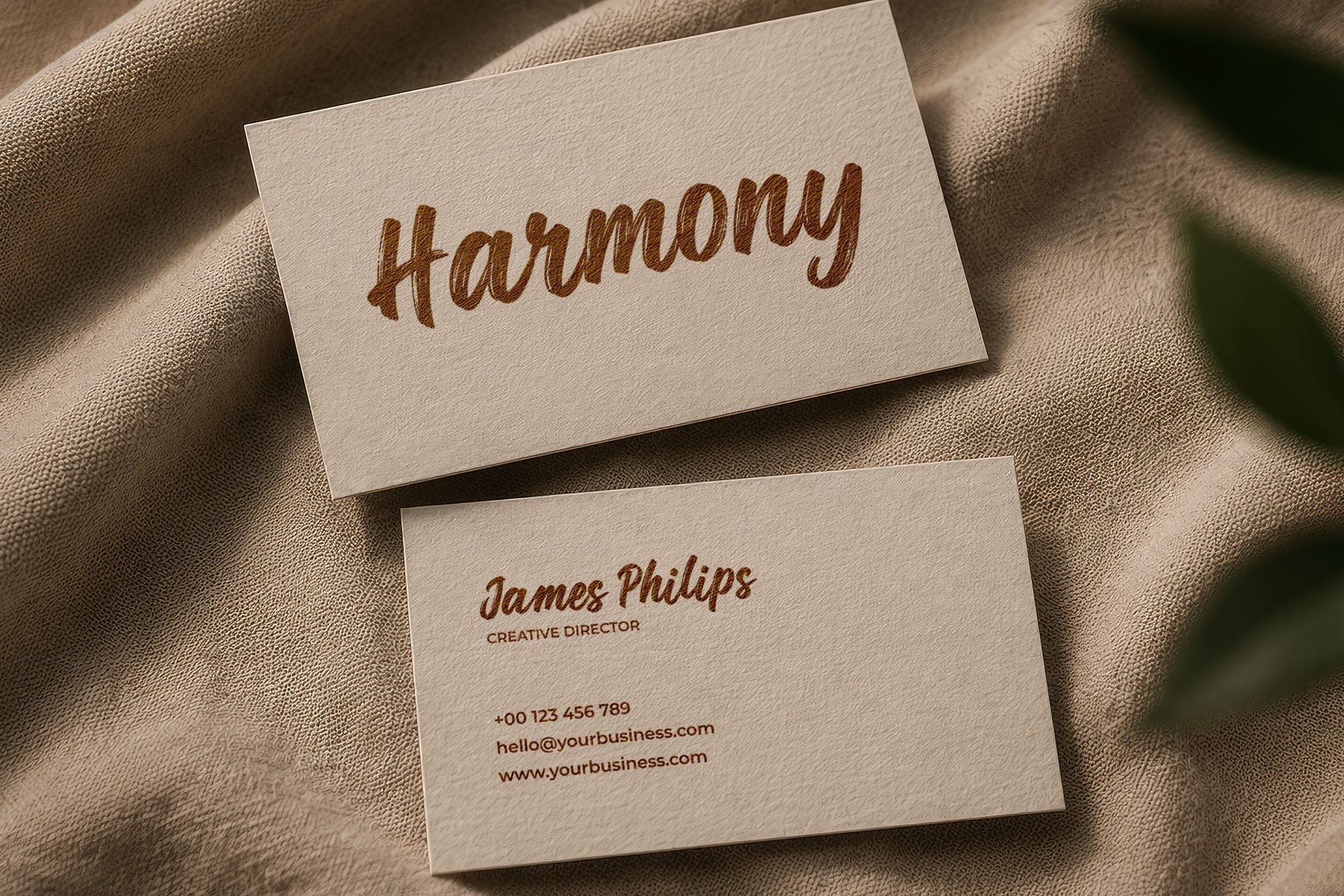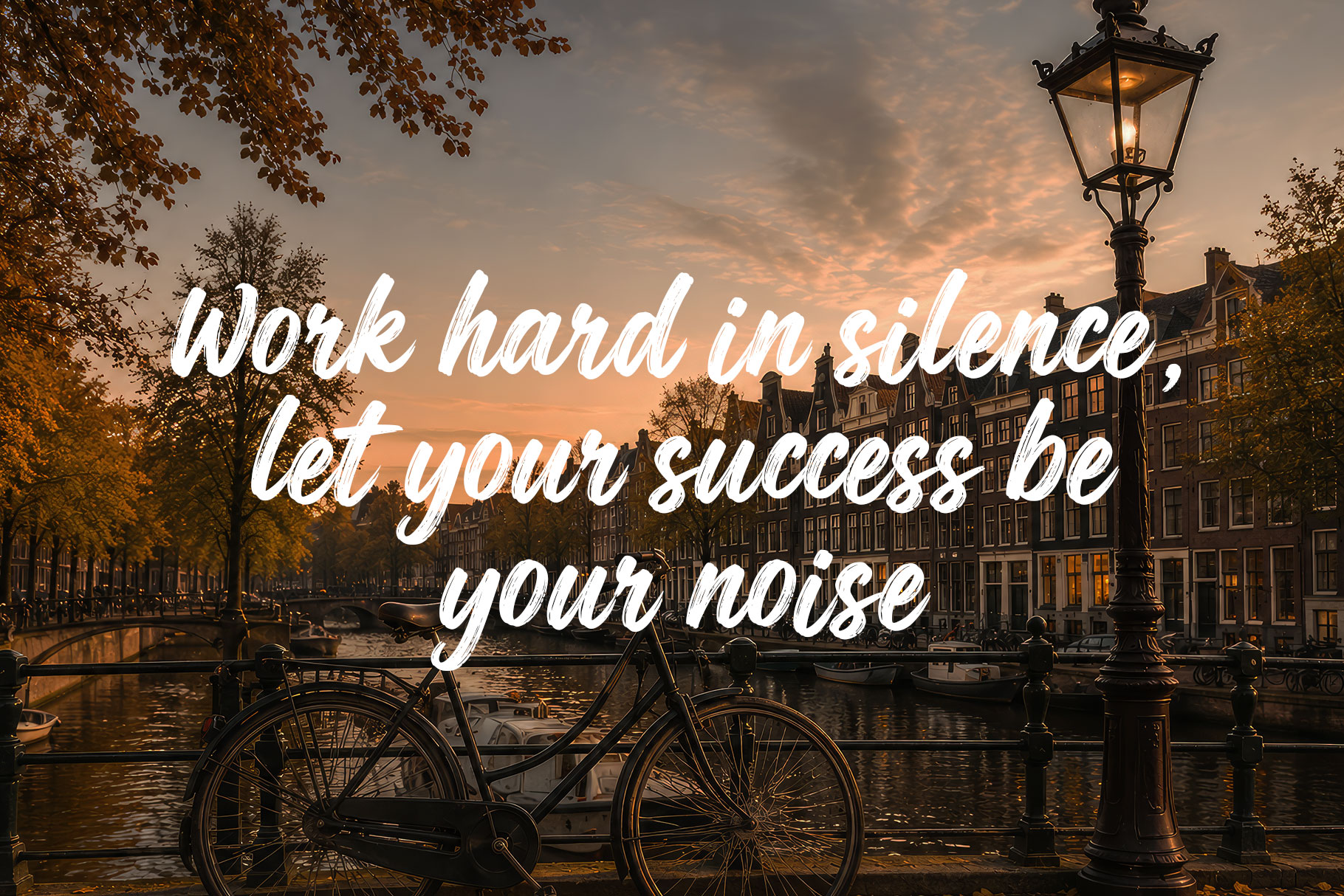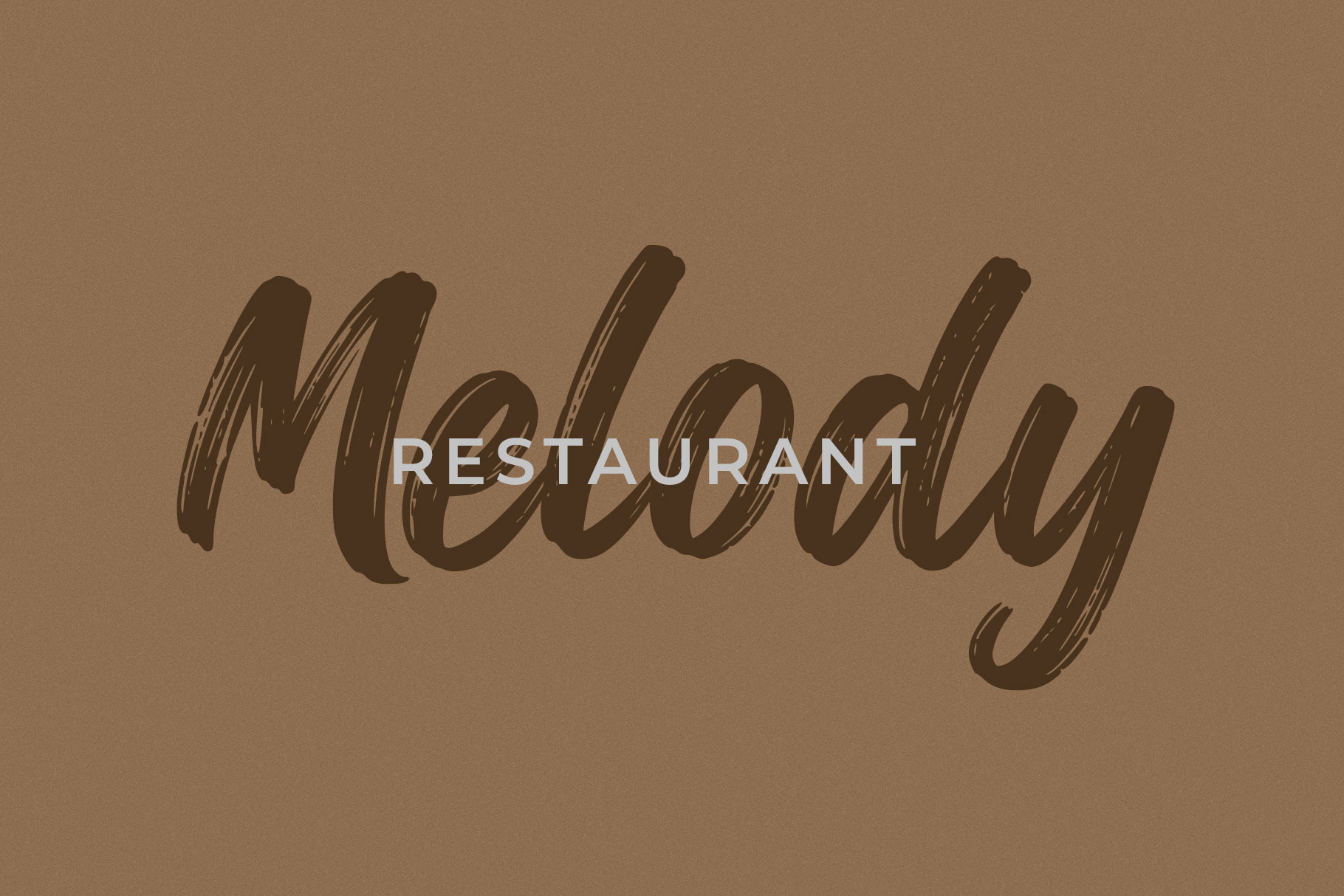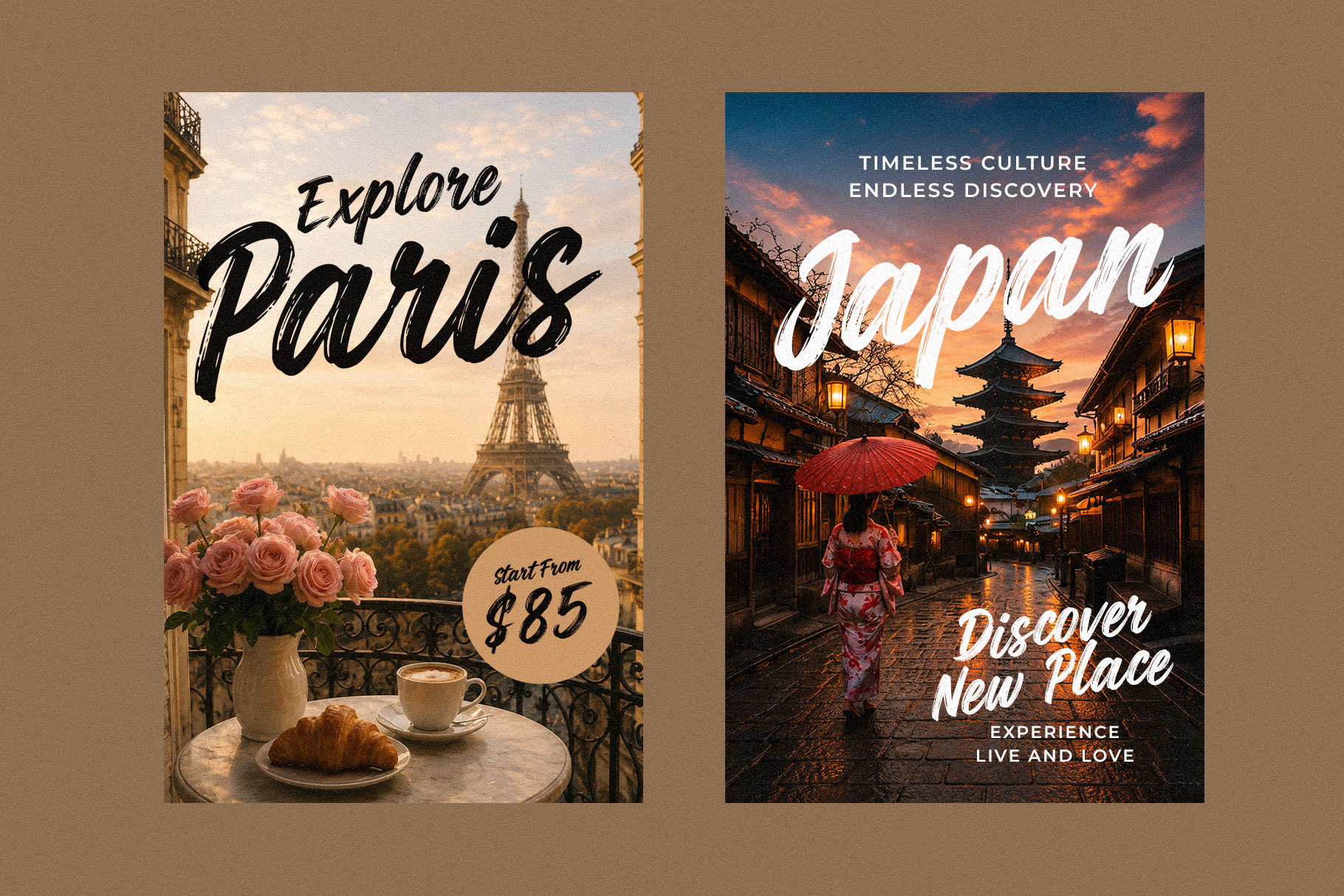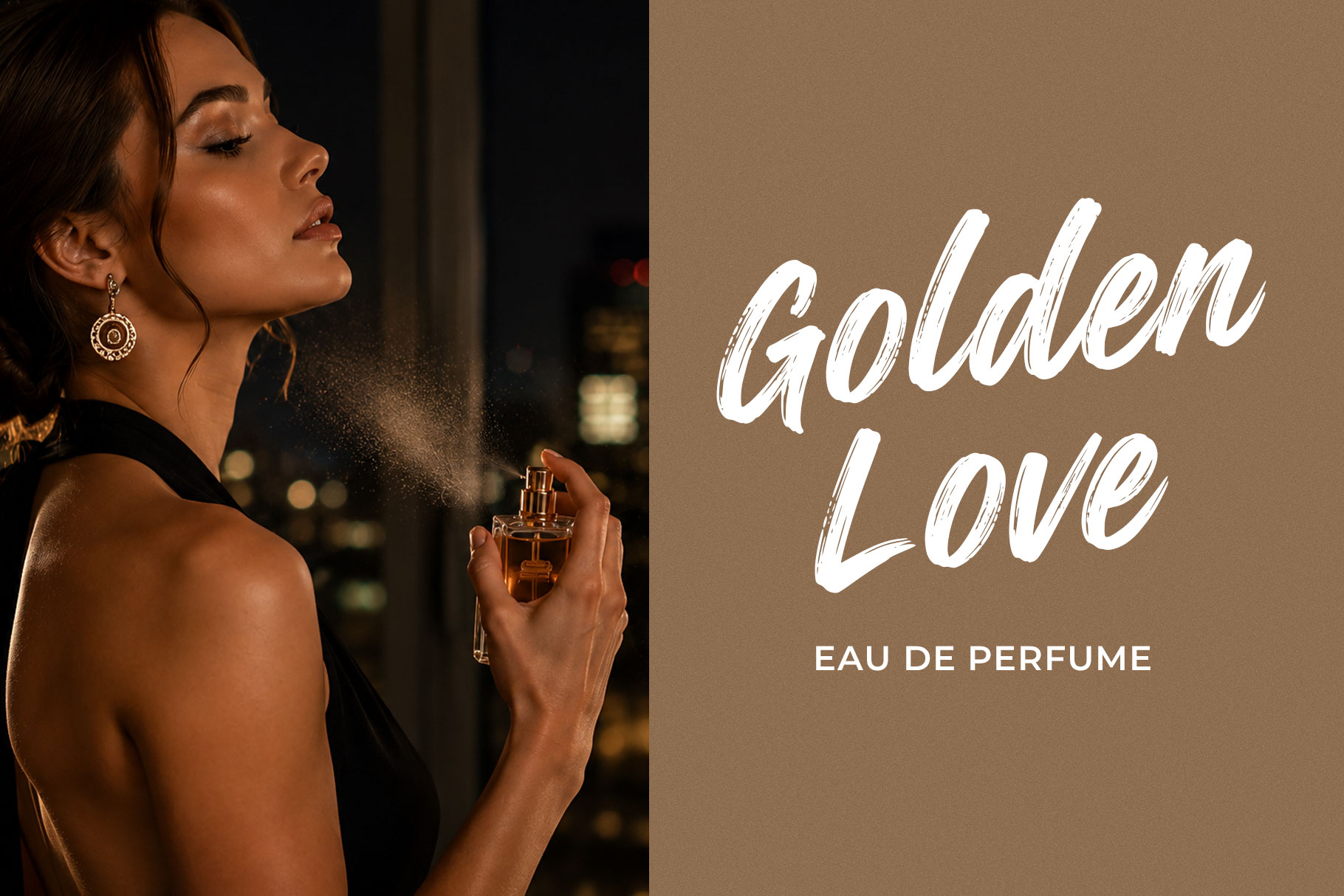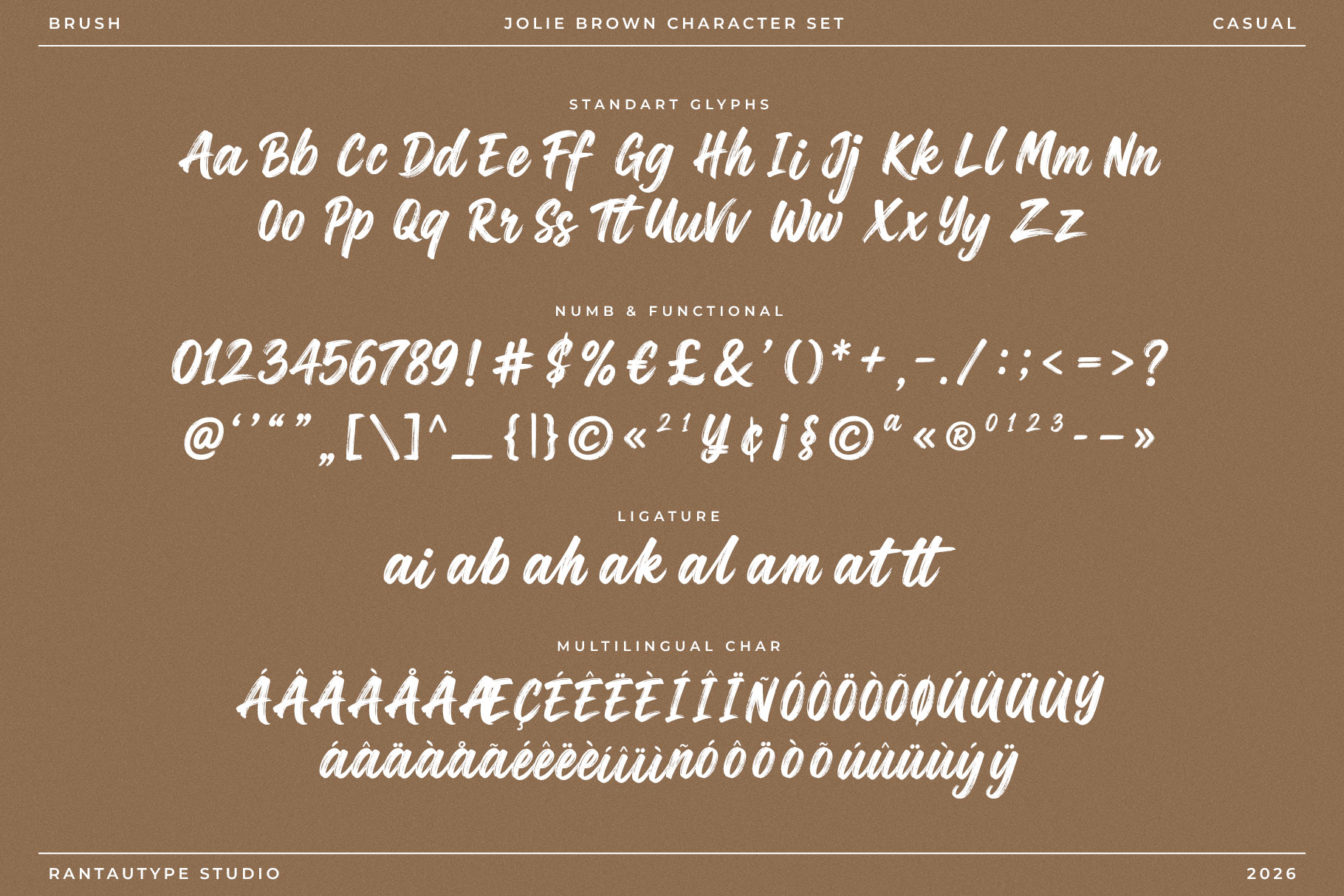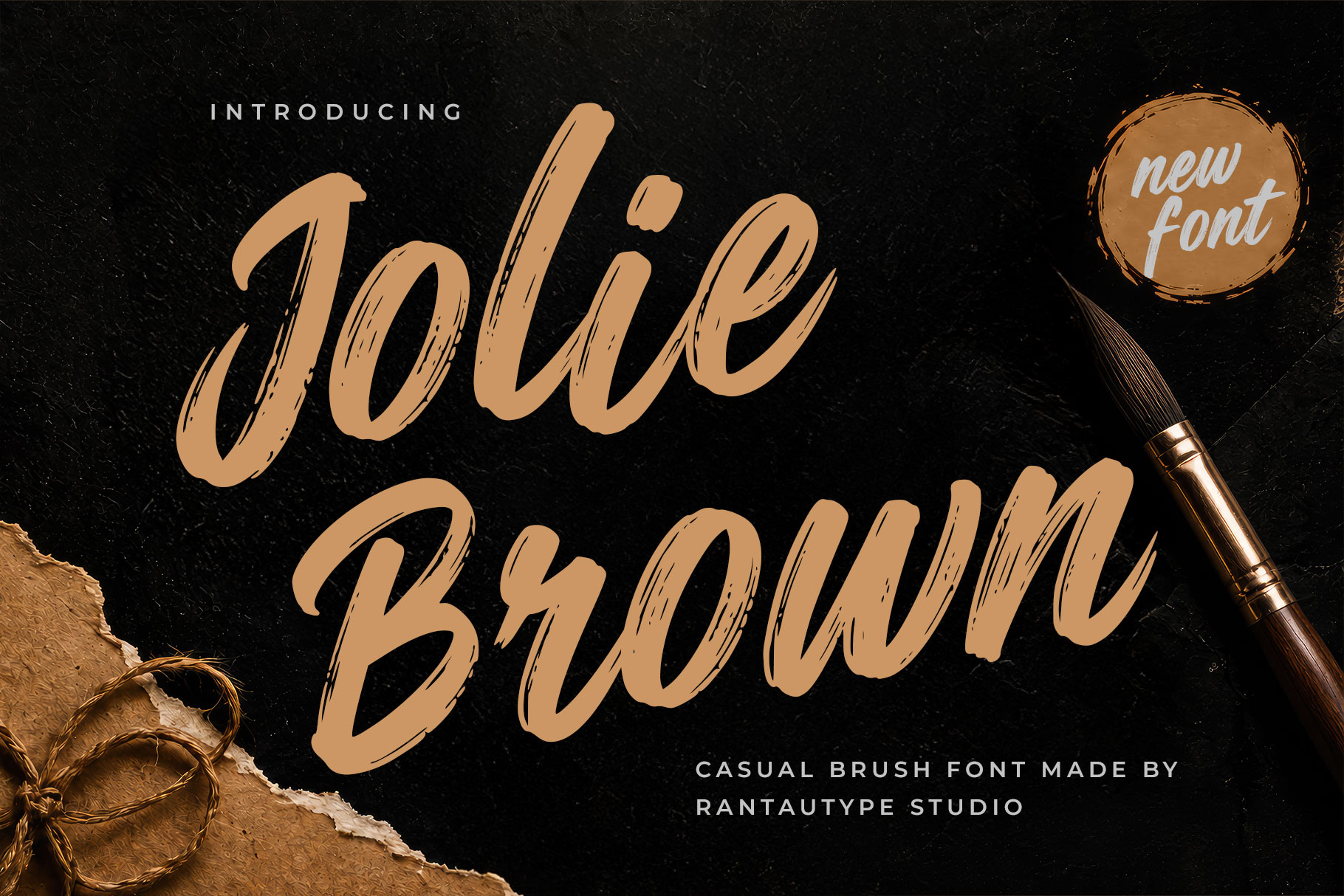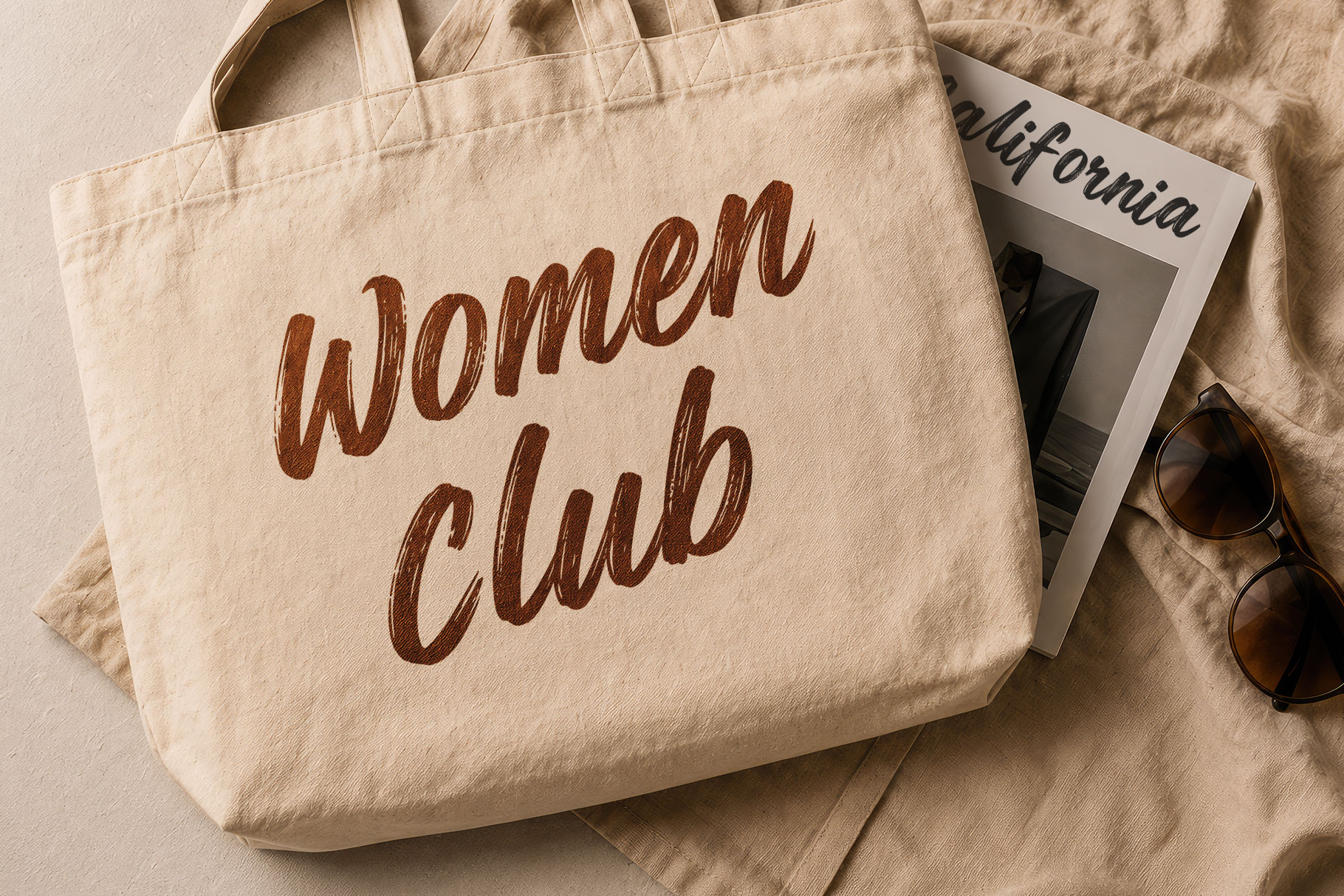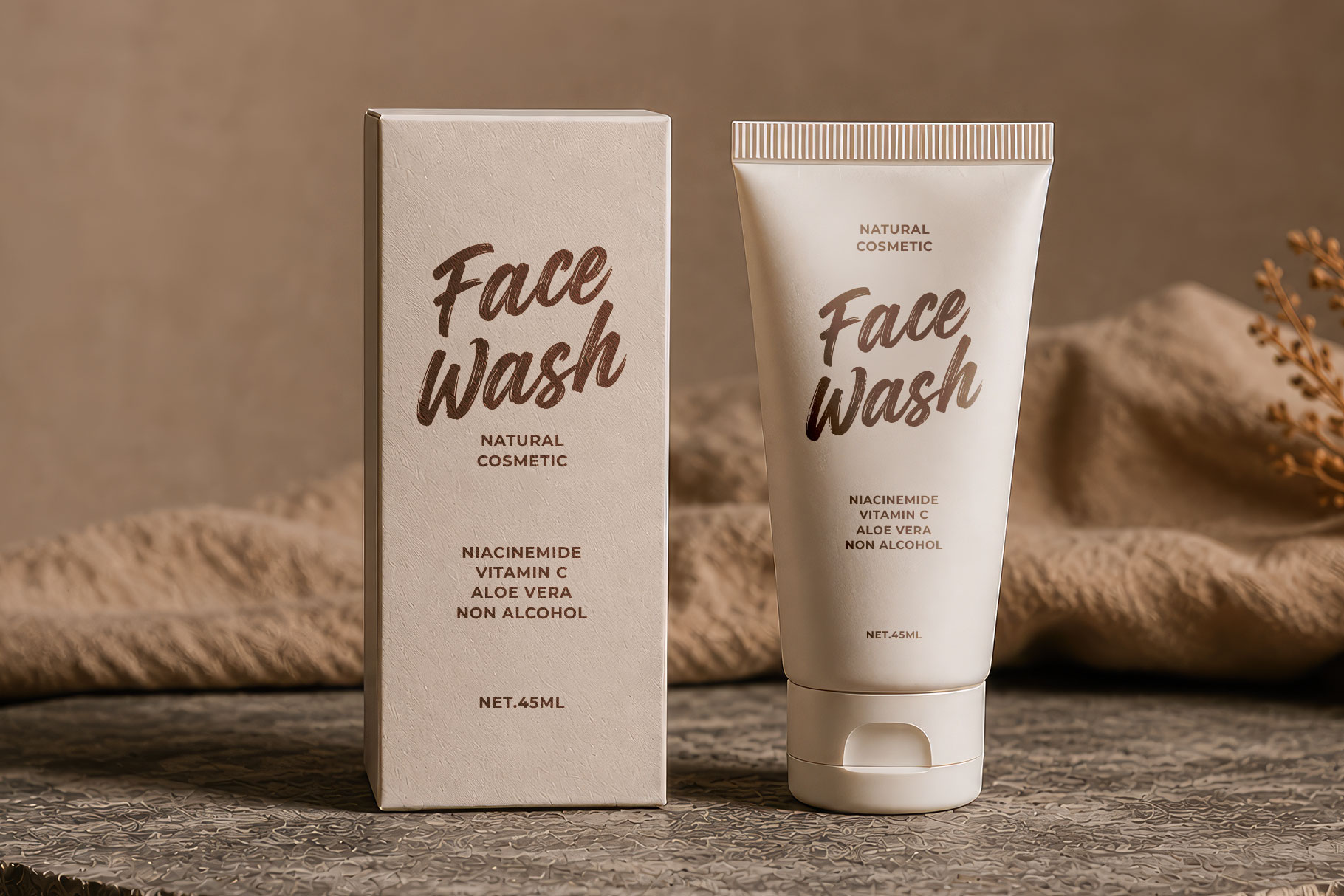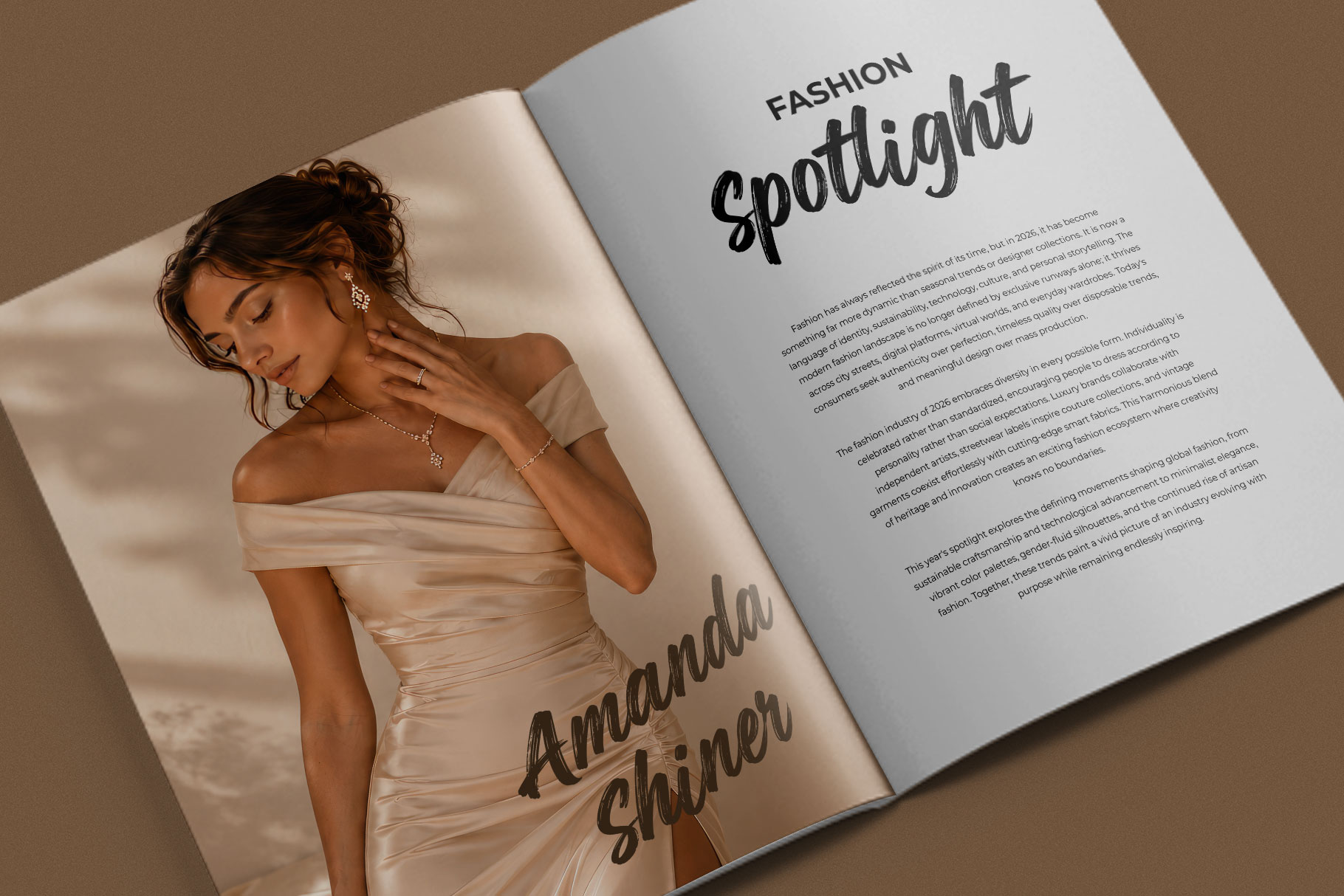
Jolie Brown is a stylish casual brush font that captures the beauty of natural handwriting with a modern artistic touch. Inspired by expressive brush strokes and effortless pen movement, this typeface delivers an authentic handcrafted feel that instantly adds personality, warmth, and creativity to every design. Its bold curves, textured edges, and flowing letterforms create a confident yet approachable appearance, making it perfect for projects that demand both impact and elegance.
Jolie Brown is a perfectly choice for any creative endeavor, creating, modern, lifestyle design such as logotype, title, cover, branding, invitations, wedding designs, display and magazine, social media posts, advertisements, printed quotes, product packaging, corporate brand, product designs, labels, photography, watermarks, special events and any other project with casual touch.
Jolie Brown Casual Brush Font